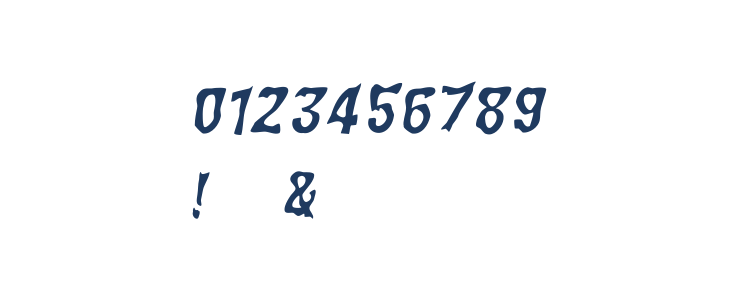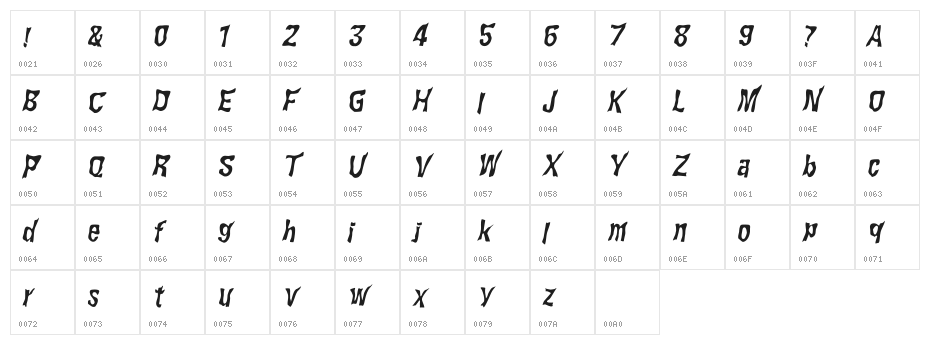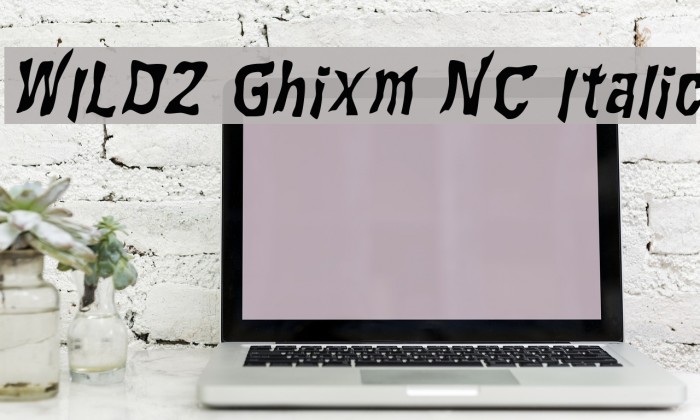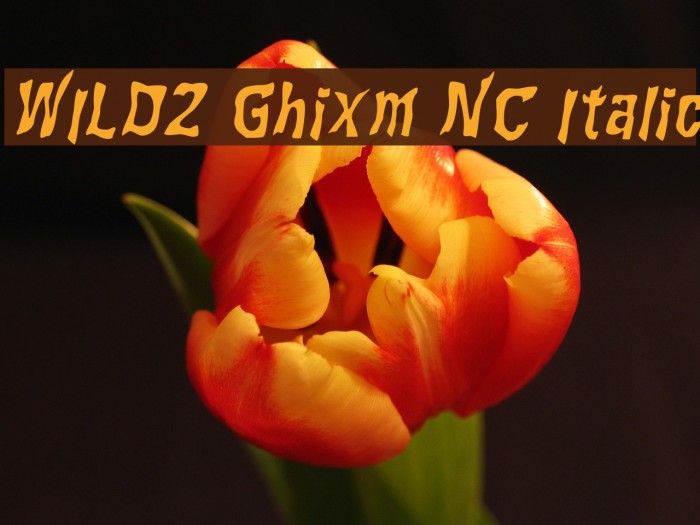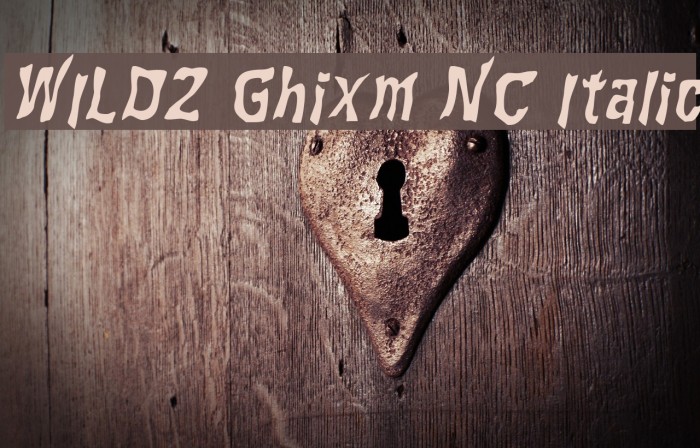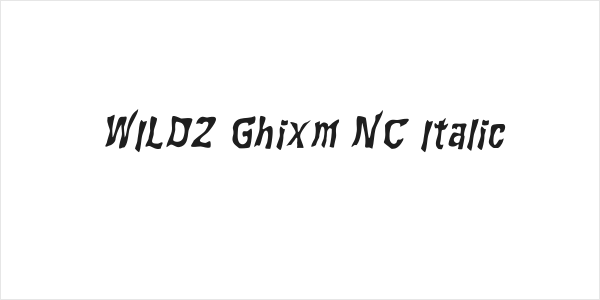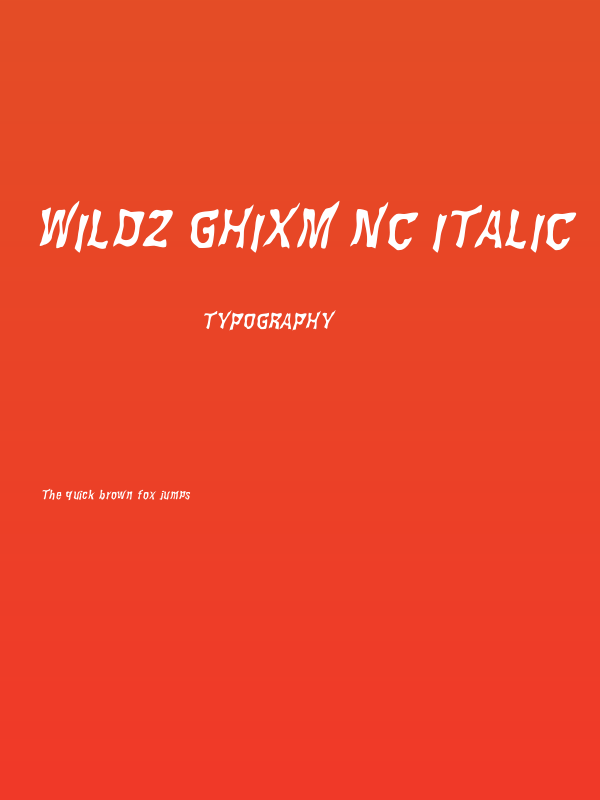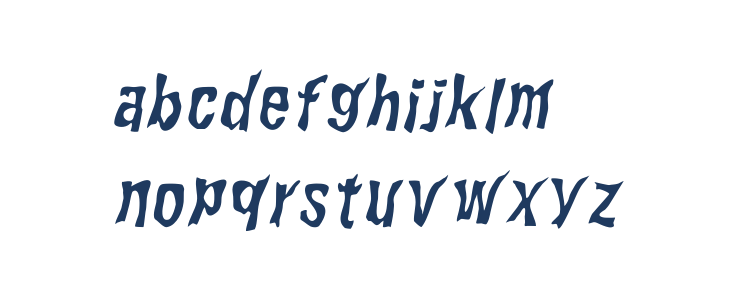
WILD2 Ghixm NC Italic Font
WILD2 Ghixm NC Italic Description
This font features a bold and dynamic appearance with a distinct italic slant, giving it a sense of movement and energy. The characters are uniquely shaped with irregular edges, creating a hand-drawn, organic feel. The uppercase and lowercase letters maintain a consistent style, with the uppercase being slightly more pronounced. Numbers and special characters follow the same design principles, ensuring uniformity across all glyphs. The font's overall aesthetic is edgy and modern, making it suitable for projects that require a standout, artistic touch.
Overall StyleModern, Artistic
Proposed ProjectsIdeal for posters, album covers, branding, and creative design projects that need a bold statement.